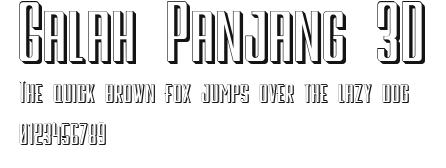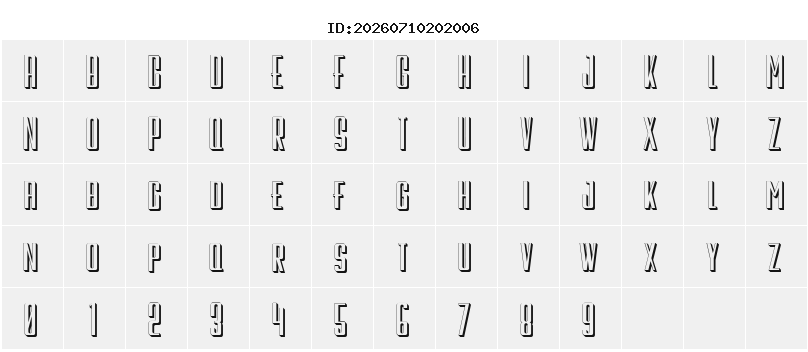
Galah Panjang 3D Preview
• Font Name: Galah Panjang 3D
• Full Font Name: Galah Panjang 3D
• PostScript Name: GalahPanjang3D
• Designer: cenz qobbal
• Manufacturer: cenz qobbal
About Galah Panjang 3D.ttf
Galah Panjang 3D.ttf is a modern, elegant sans-serif font designed for ultimate readability and visual harmony. Perfect for branding, headlines, web design, and print materials.